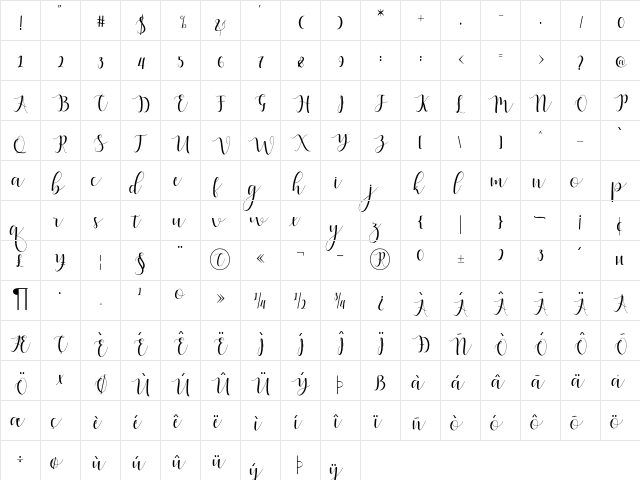
Qatielia Script Regular
| Foundry | bexxtype |
| Designer | bexxtype |
Design Context for Qatielia Script Typeface
Qatielia Script flows with the natural rhythm of handwritten lettering, making it ideal for designs that call for warmth and personal expression.
Font Pairing: Combine Qatielia Script with a simple geometric sans for maximum contrast — the tension between flowing curves and clean structure is a classic typographic pairing.
Pro Tip: Pair Qatielia Script with a clean sans-serif for supporting text. The contrast between fluid script and geometric structure creates an elegant typographic hierarchy.